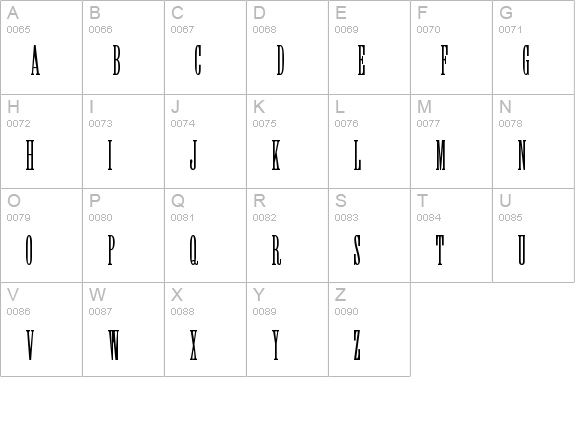
Elven SSi Light Font Details
Elven SSi Light is a refined, elegant variant in the Elven typeface family \xE2\x80\x94 well suited to elegant body text, refined sub-headings, and luxury branding.
Elven SSi Light font embodies an ethereal beauty and elegance, perfect for adding a touch of enchantment to any design project. With its delicate curves and intricate details, this font captures the essence of elven craftsmanship and grace. The Elven SSi Light font is a versatile typeface that can be used for a wide range of applications, from branding and logo design to invitations and packaging. Its light weight brings a sense of airiness and sophistication to any text. Best of all, Elven SSi Light font is completely free to download at FontsMarket.com. Take advantage of this wonderful opportunity to enhance your designs with a touch of elven magic. Download the Elven SSi Light font today and let your creativity soar to new heights.